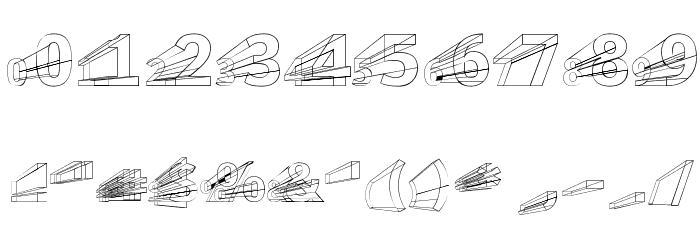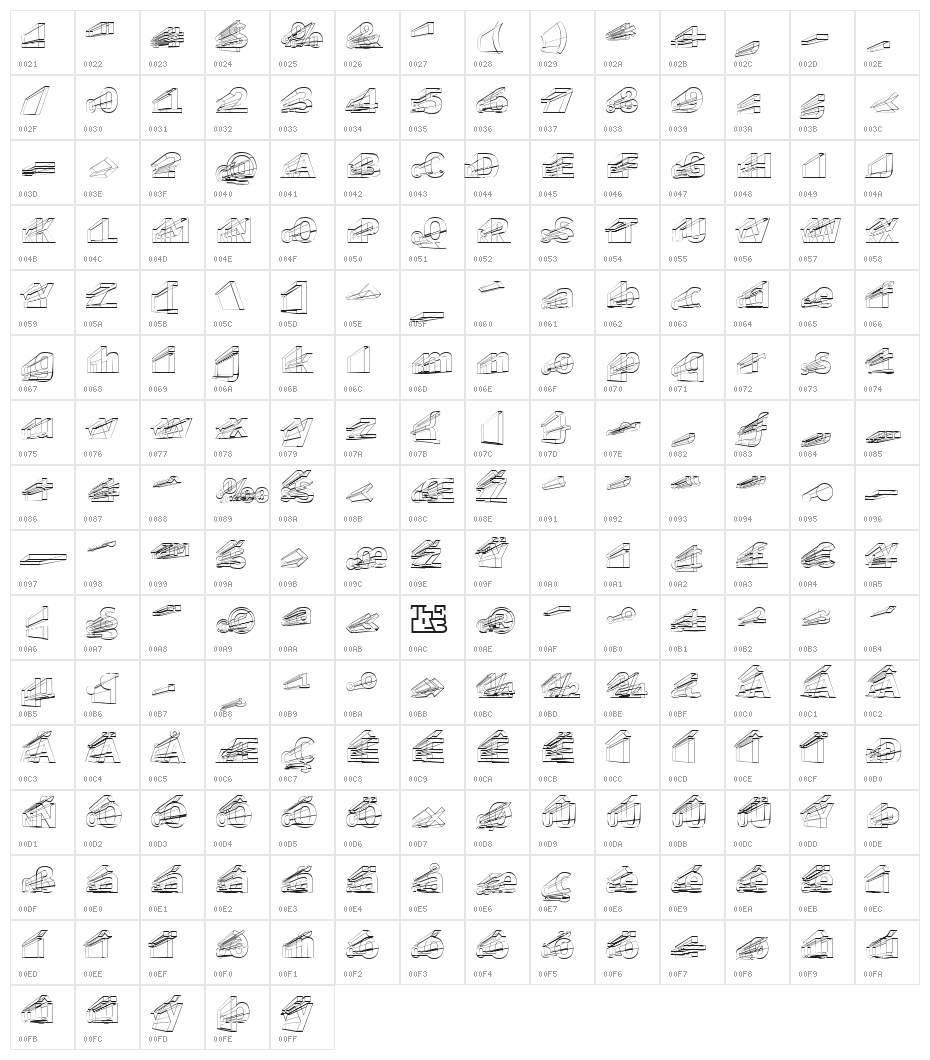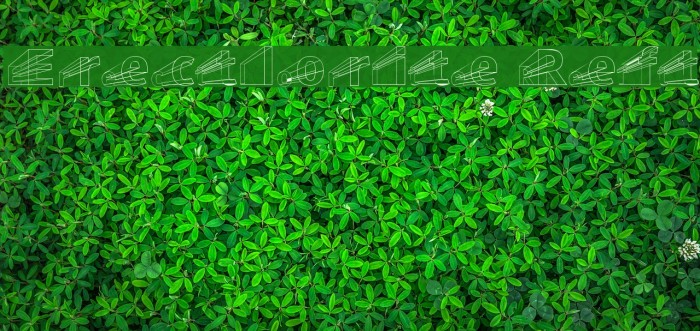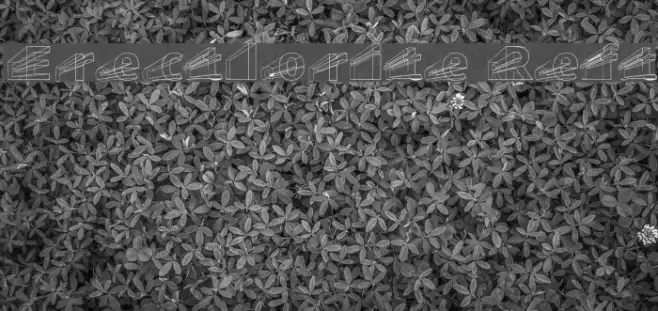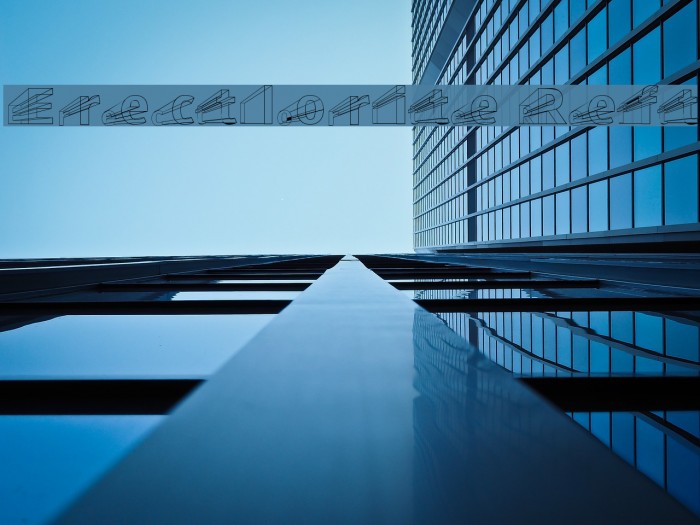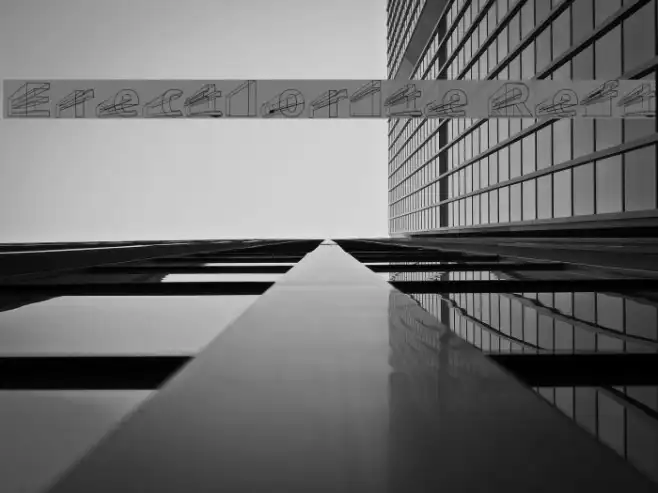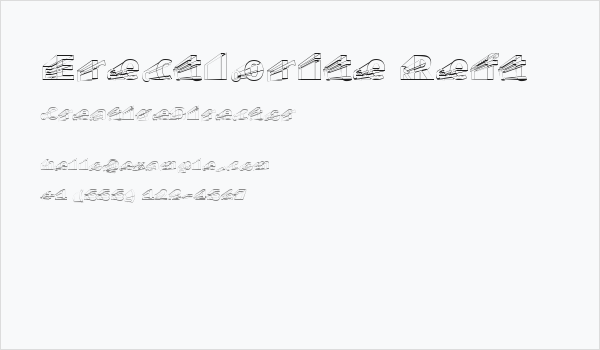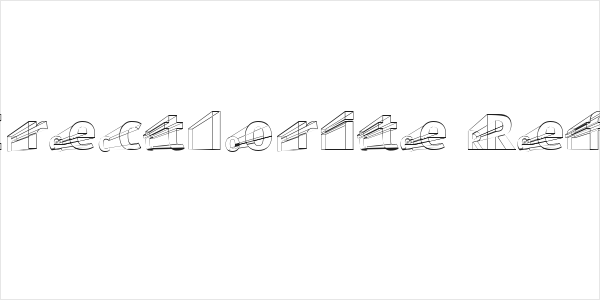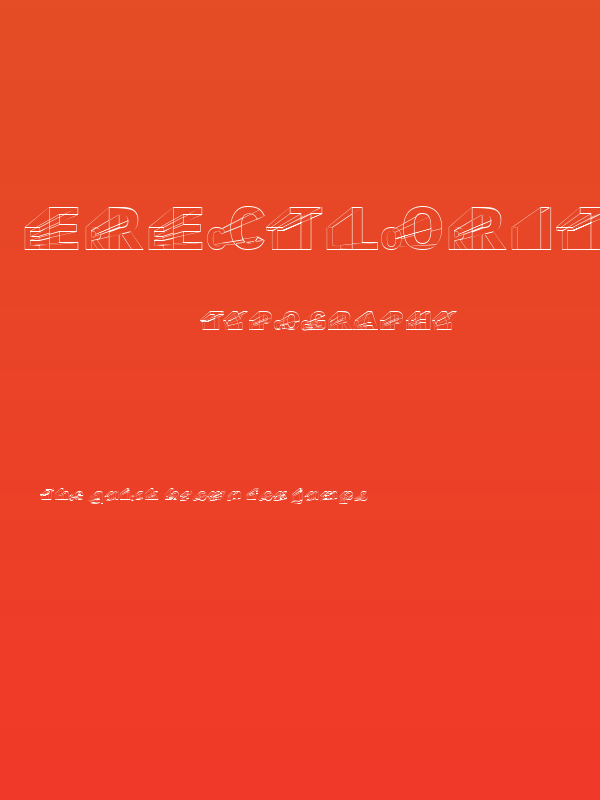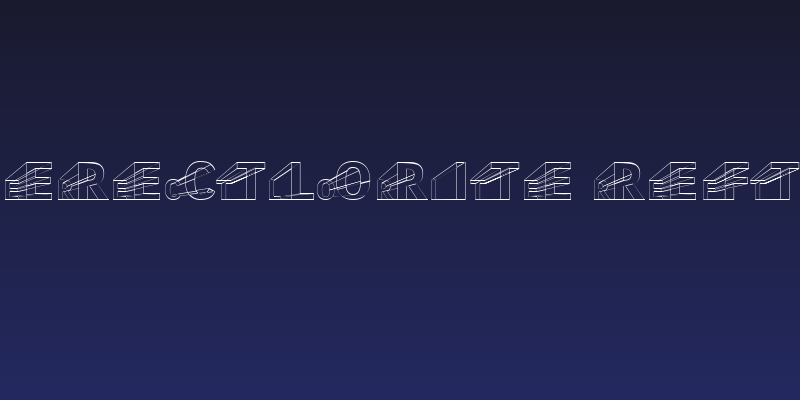
Erectlorite Reft Font
Erectlorite Reft Description
This font features a unique and intricate 3D geometric design, with each character appearing as if constructed from wireframe structures. The letters and numbers have a bold, architectural feel, with overlapping lines creating a sense of depth and complexity. The style is highly decorative, making it stand out with its modern, abstract appearance. The characters are consistent in their three-dimensional representation, providing a cohesive look across the entire set. This font is ideal for projects that require a striking visual impact, such as branding, posters, or digital art.
| Proposed Projects | Ideal for branding, posters, digital art, and any project needing a striking visual impact. |